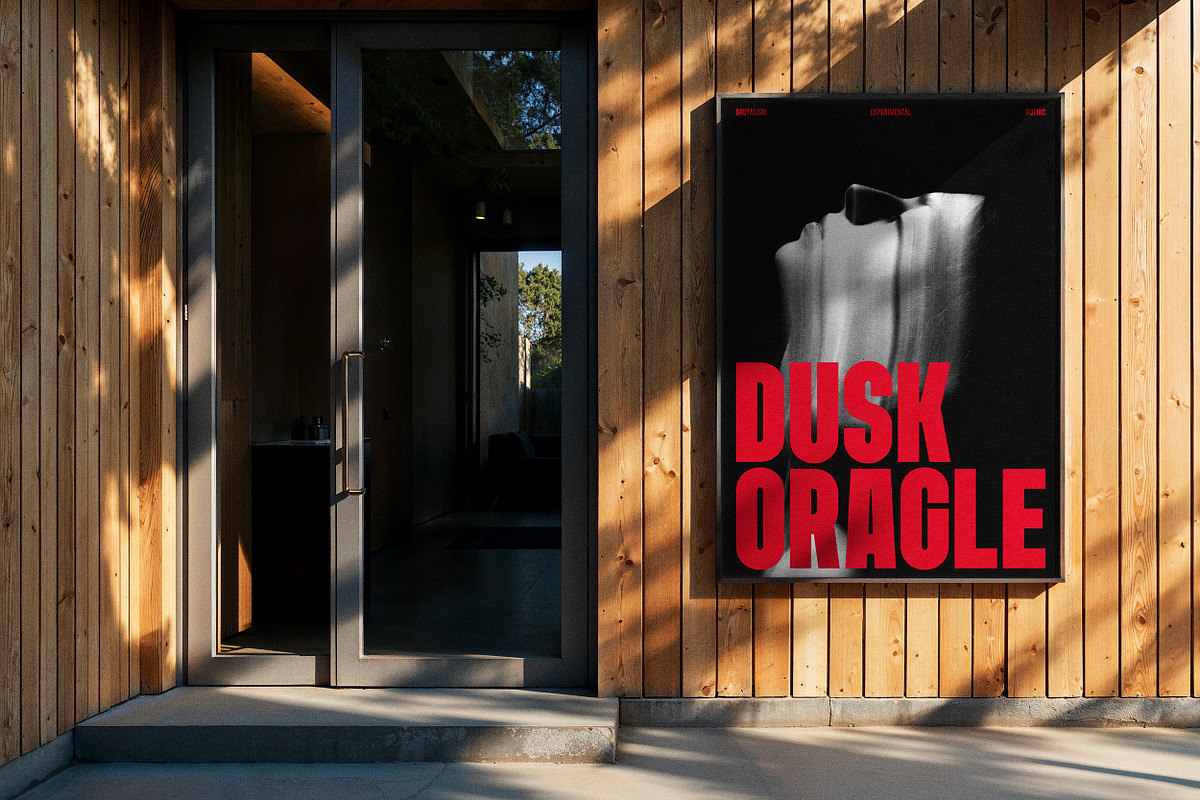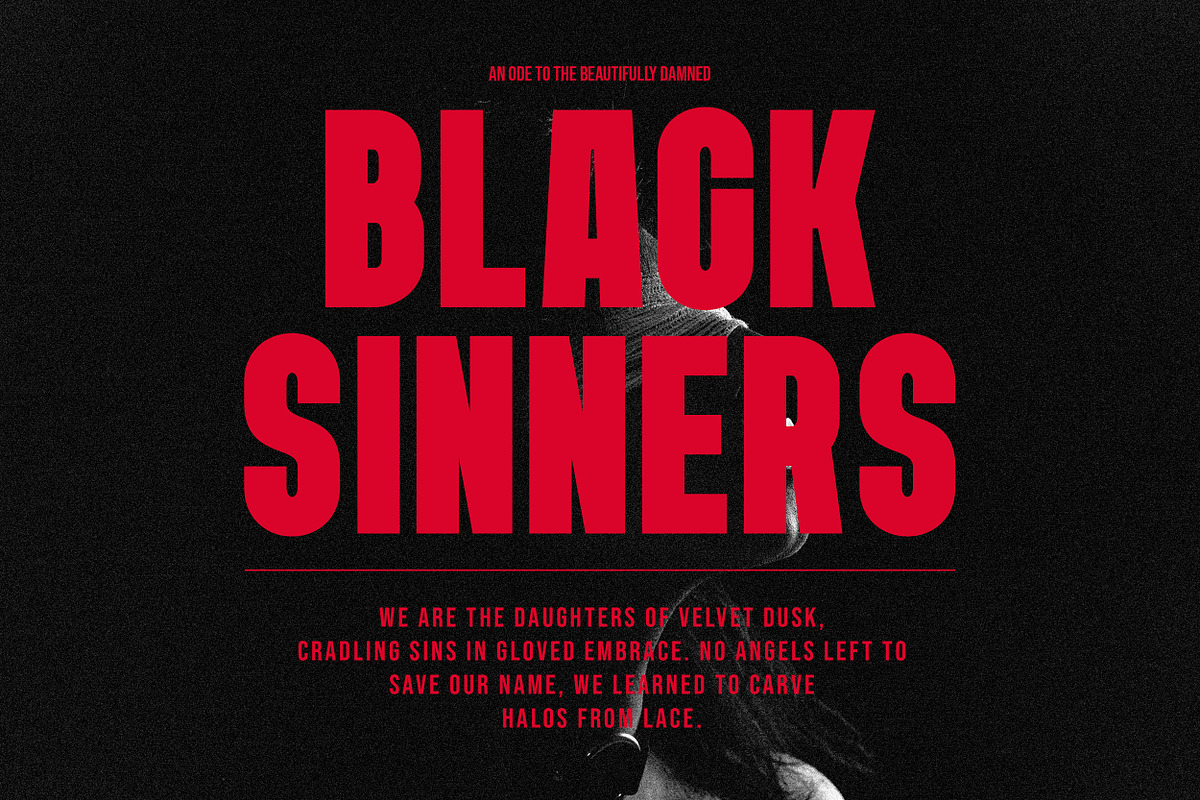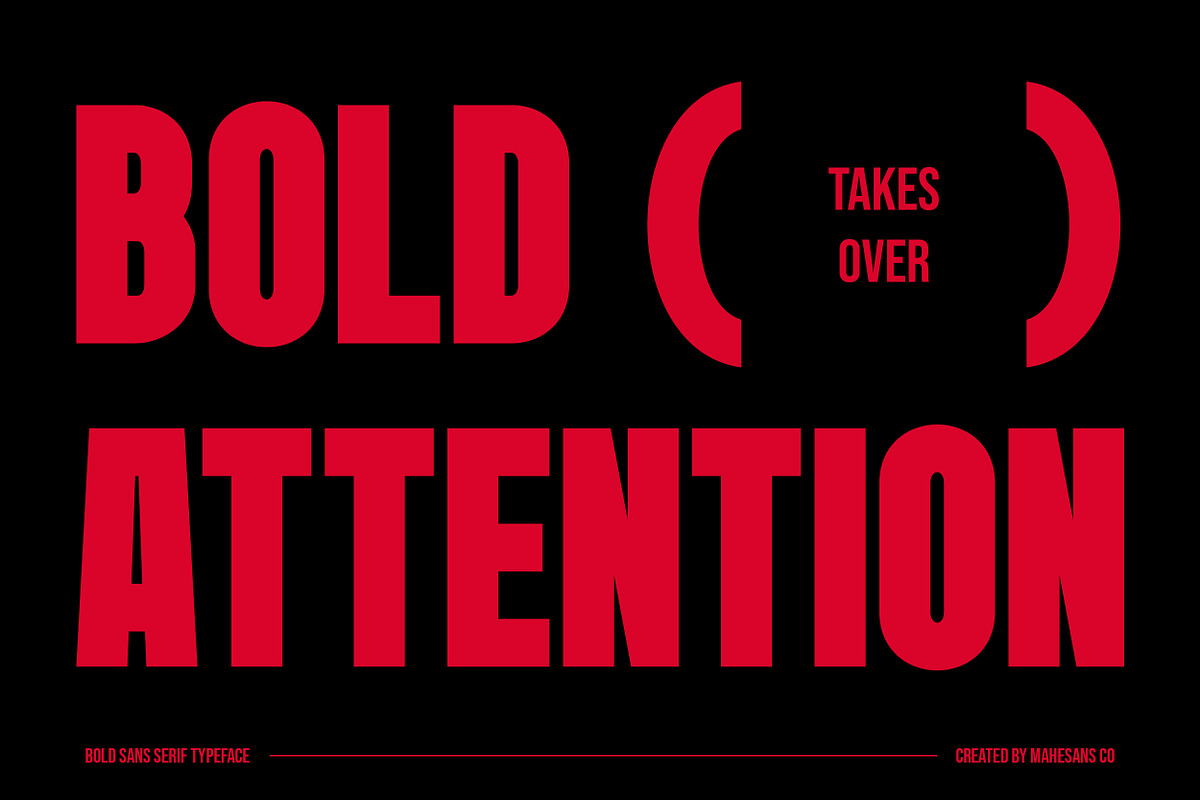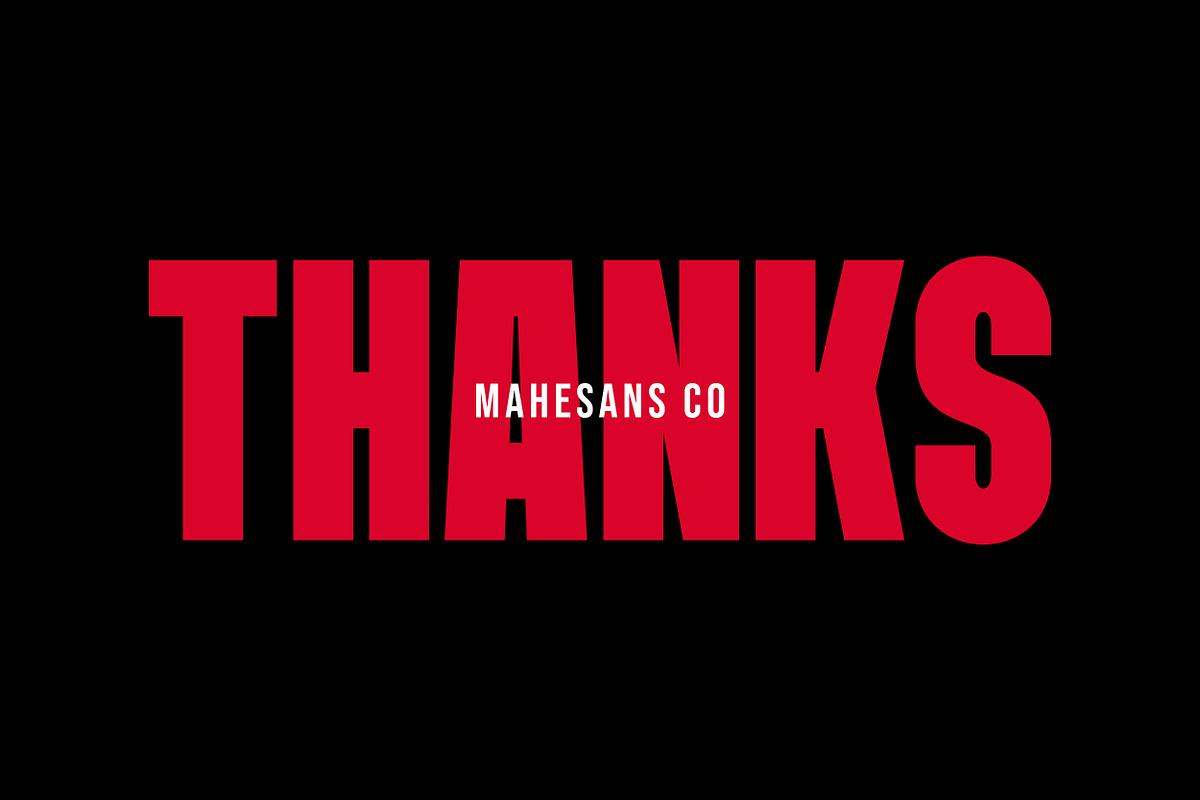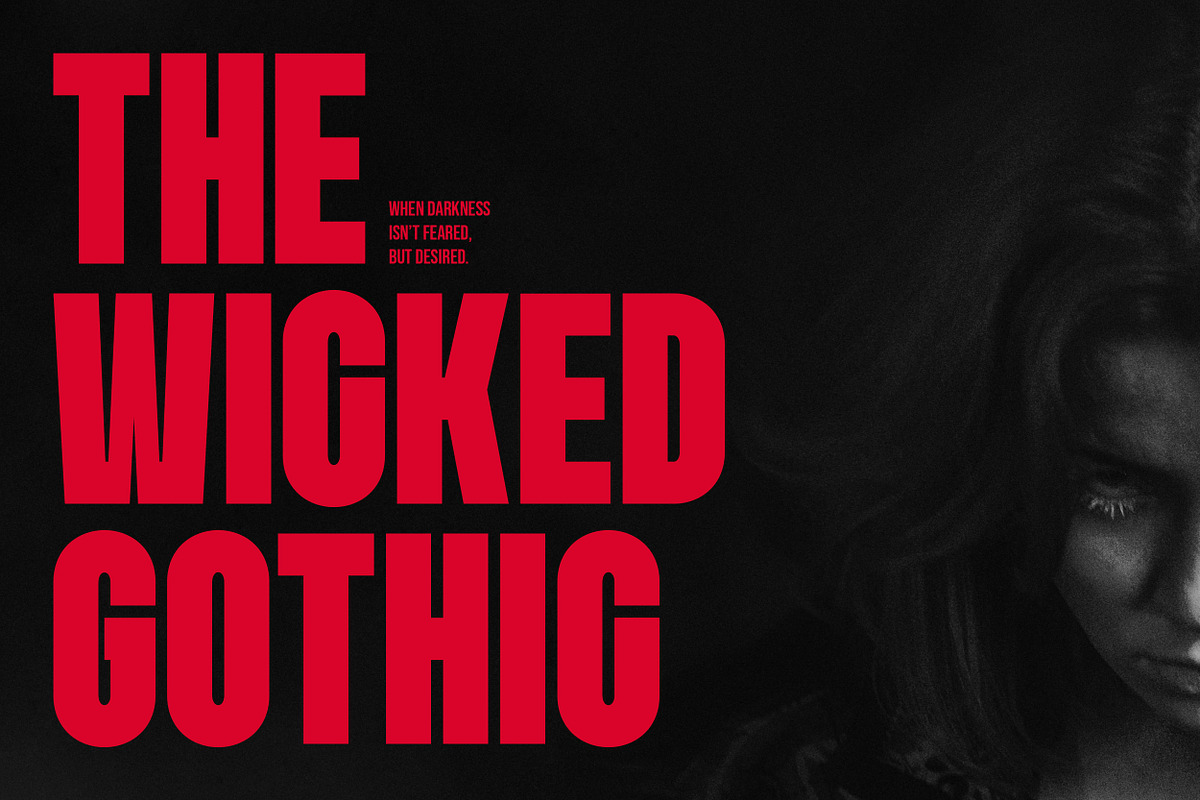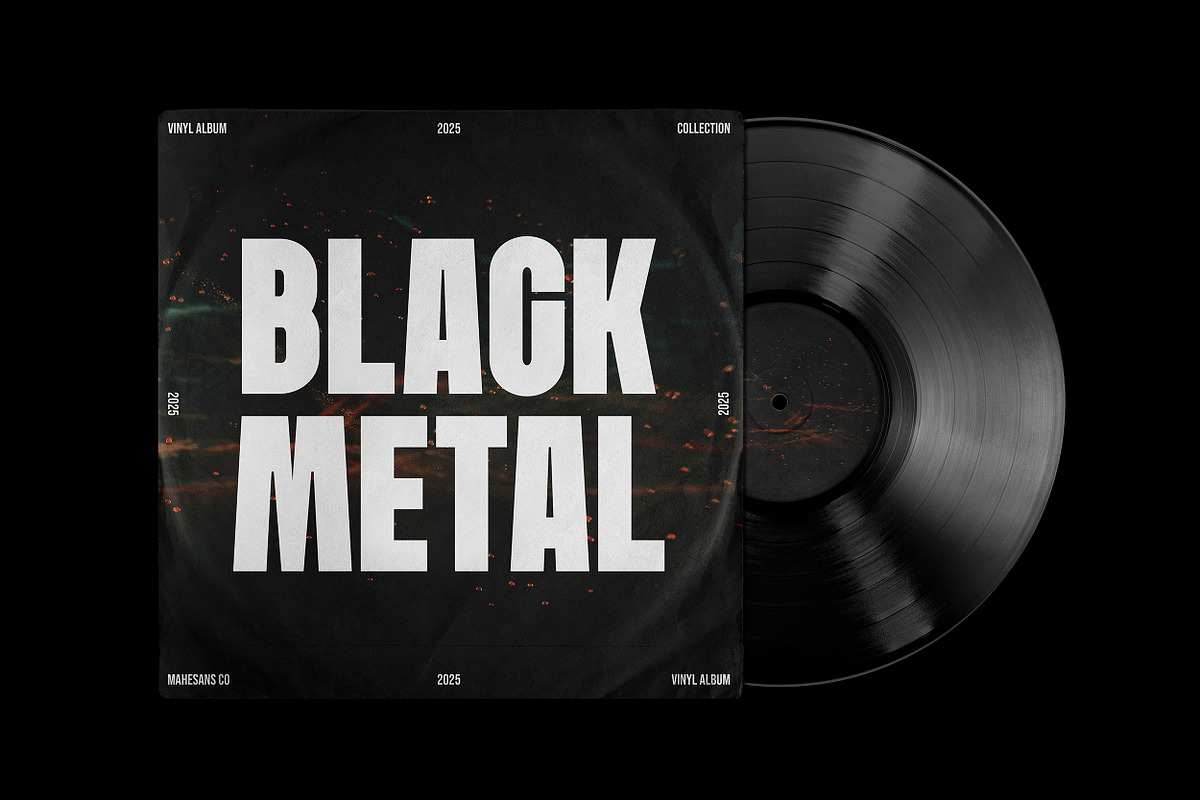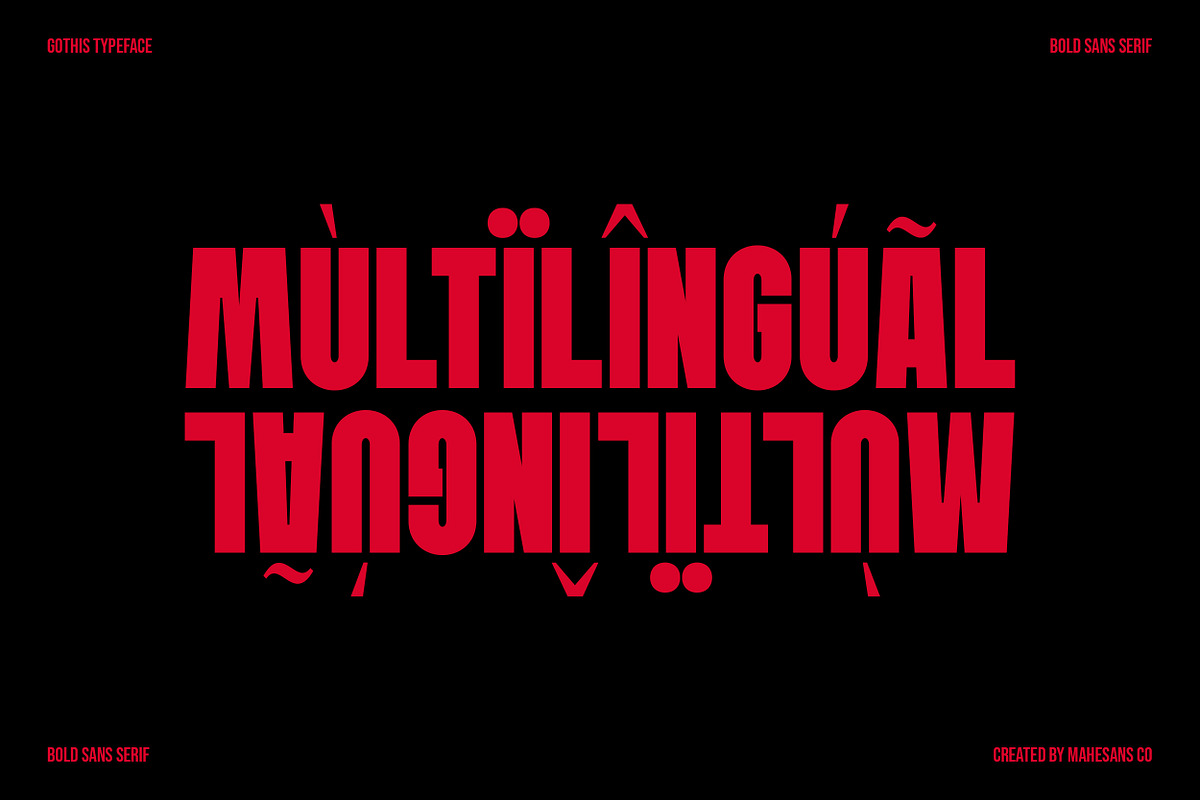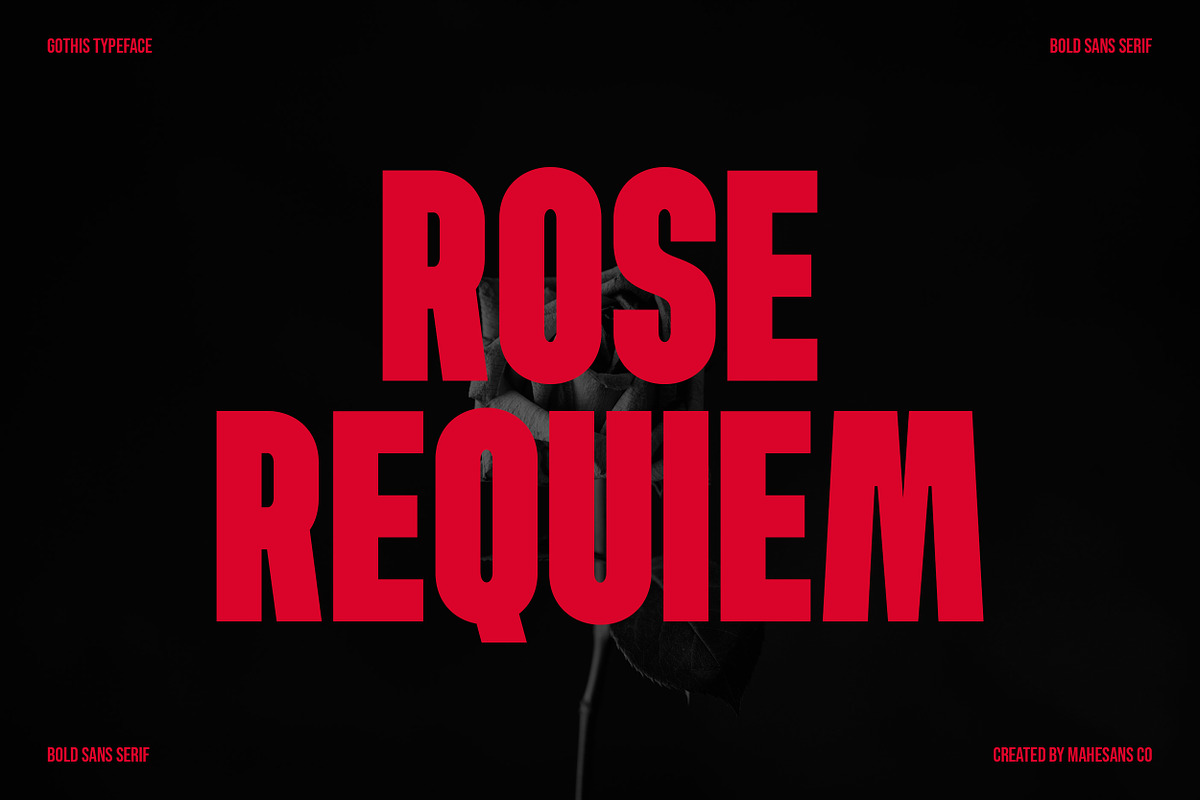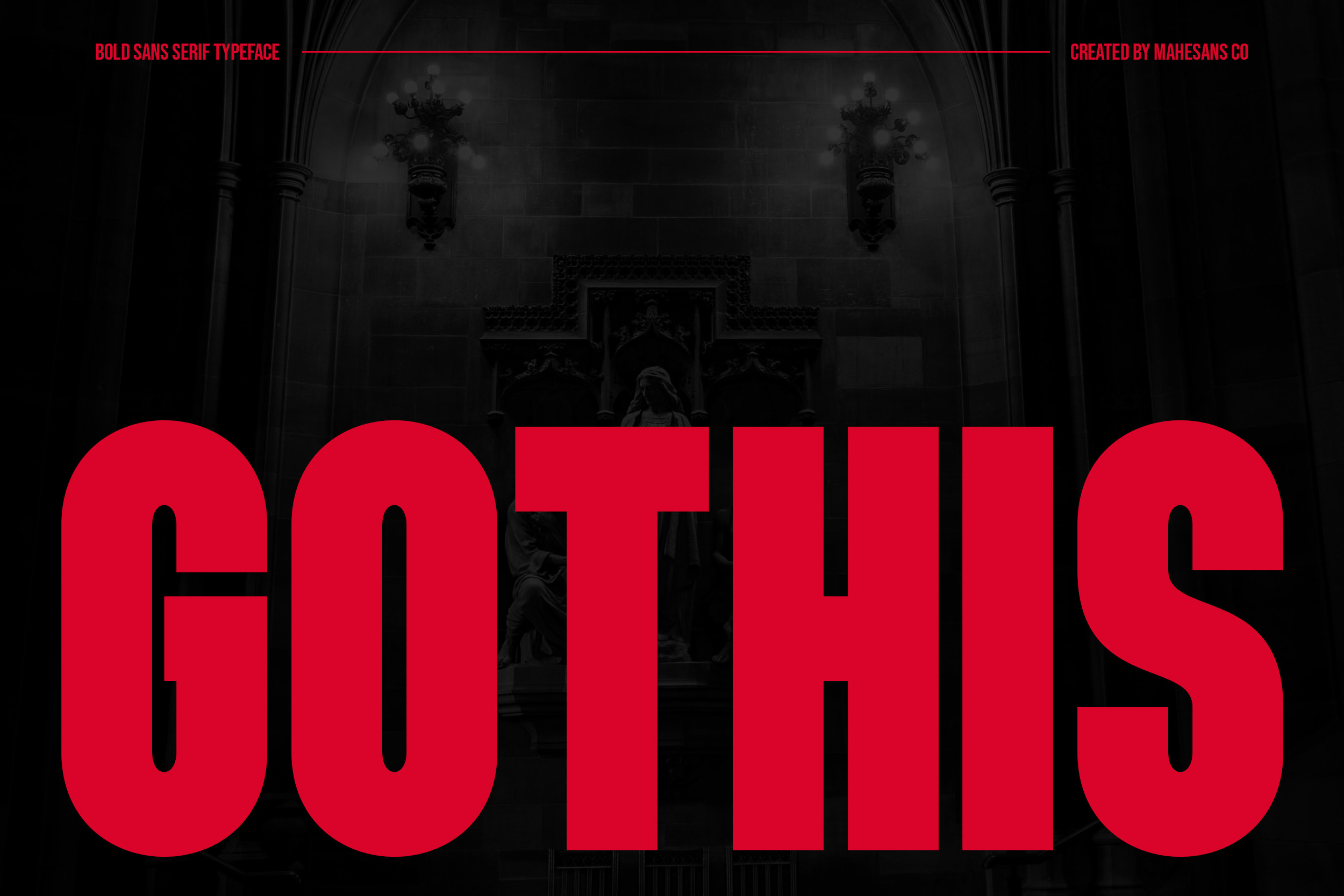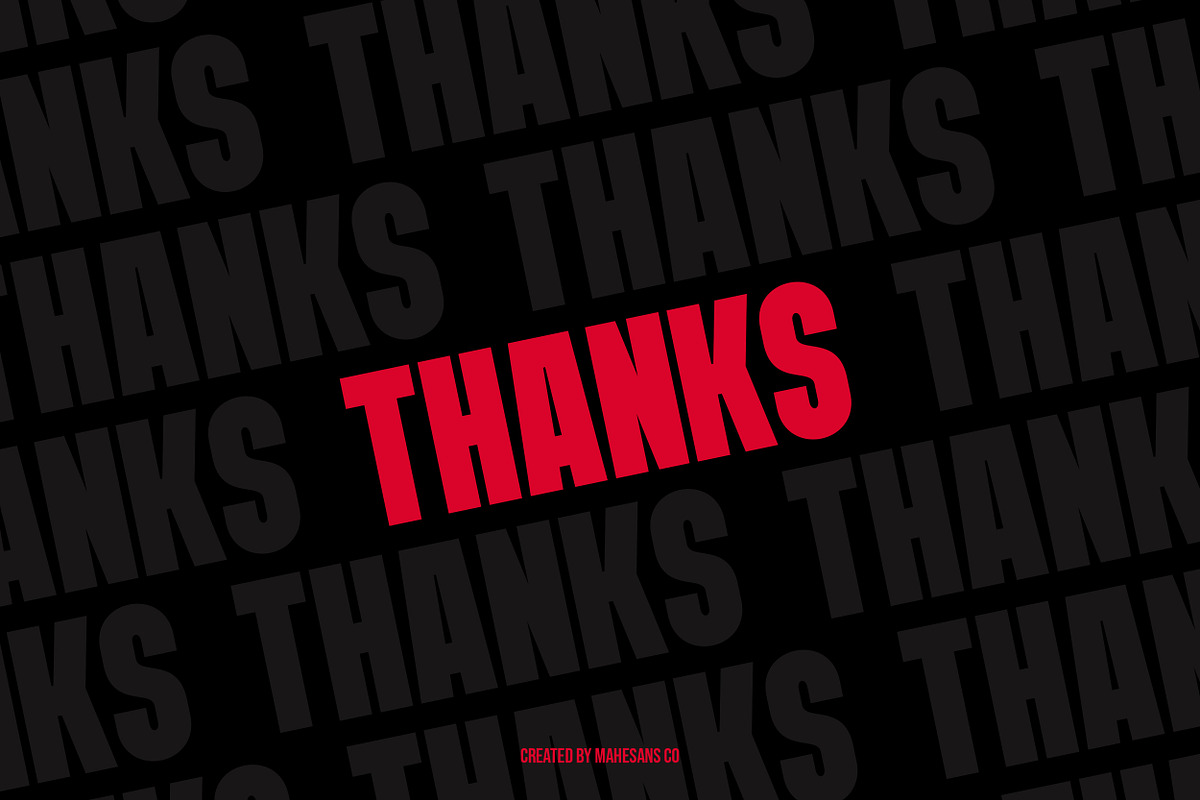
Gothis | Bold Sans Serif Font
GOTHIS – Bold Sans Serif Typeface designed with strong geometric shapes and timeless industrial vibes. This font is crafted to deliver clean, solid, and impactful typography, making it a perfect choice for branding, album covers, editorial titles, posters, and packaging designs.
Inspired by vintage vinyl aesthetics combined with modern minimalism, GOTHIS stands out with its robust letterforms and versatile character set. Whether you're working on a retro-themed design or a bold contemporary layout, GOTHIS will add a distinctive, confident presence to your project.
- Numberial & Punctuation
- Multilanguage